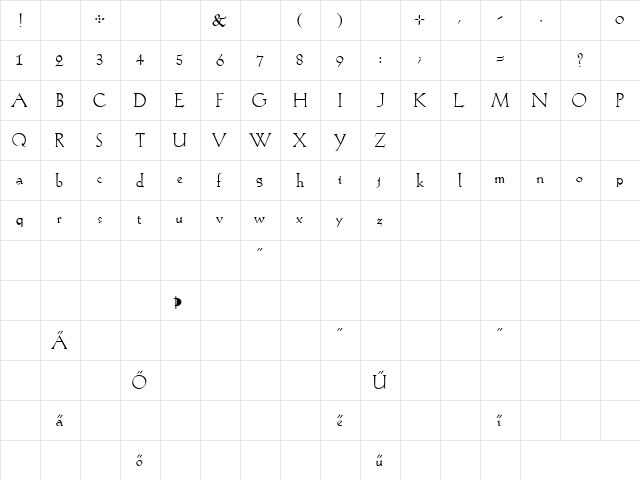
Darkside 2 Regular
Design Context for Darkside 2 Typeface
Darkside 2 is a composed and adaptable typeface that performs quietly and consistently across a wide range of design contexts.